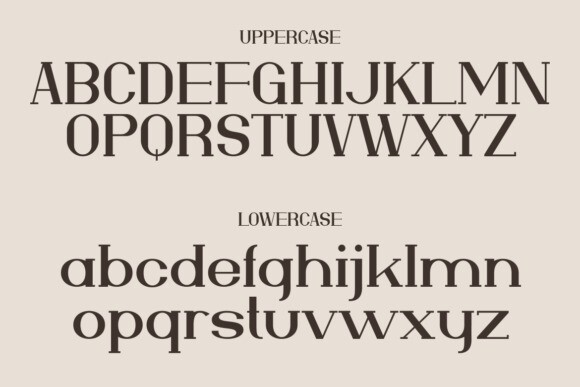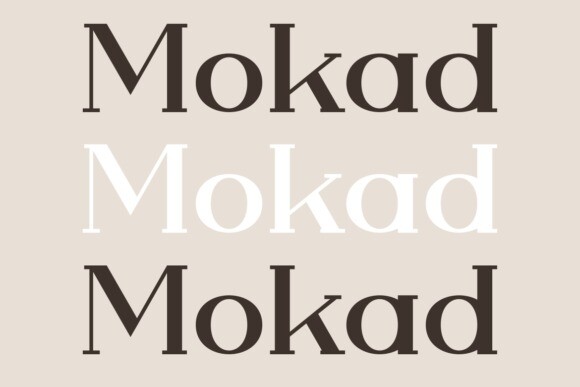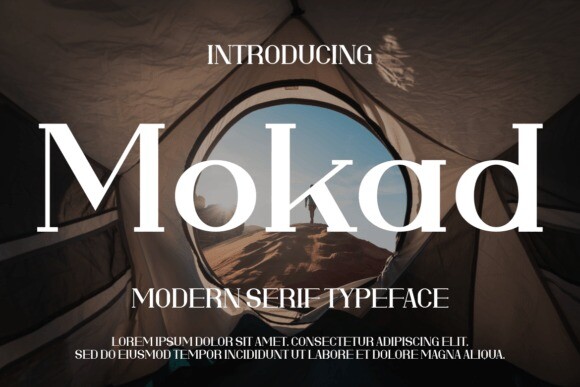
Mokad Font
Mokad Font is a bold typeface with a more futuristic typeface, making it perfect for creating (or recreating) the concise look of film and beauty poster production credits.